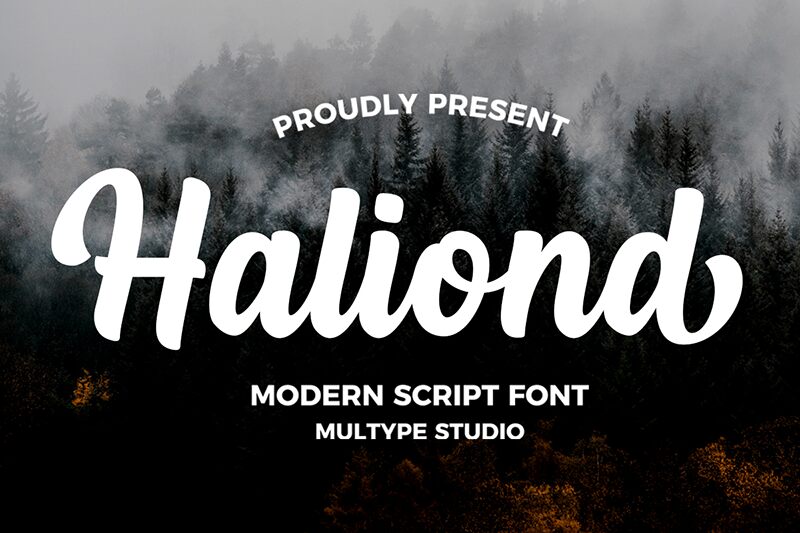
Haliond
Haliond font from Multype Studio is a free brush font combing spontaneous strokes and subdued elegance. Words set in Haliond gain a personality that mixes expressiveness and modernism, all while retaining the integrity of smooth transitions. Its light weight makes it a stylish and simple design asset suitable for contemporary branding projects.
Headings, titles, product packaging, t-shirt prints, posters, banners; all those are valid usage ideas for Haliond. The familiar appearance further allows appealing logo designs or social media publications.